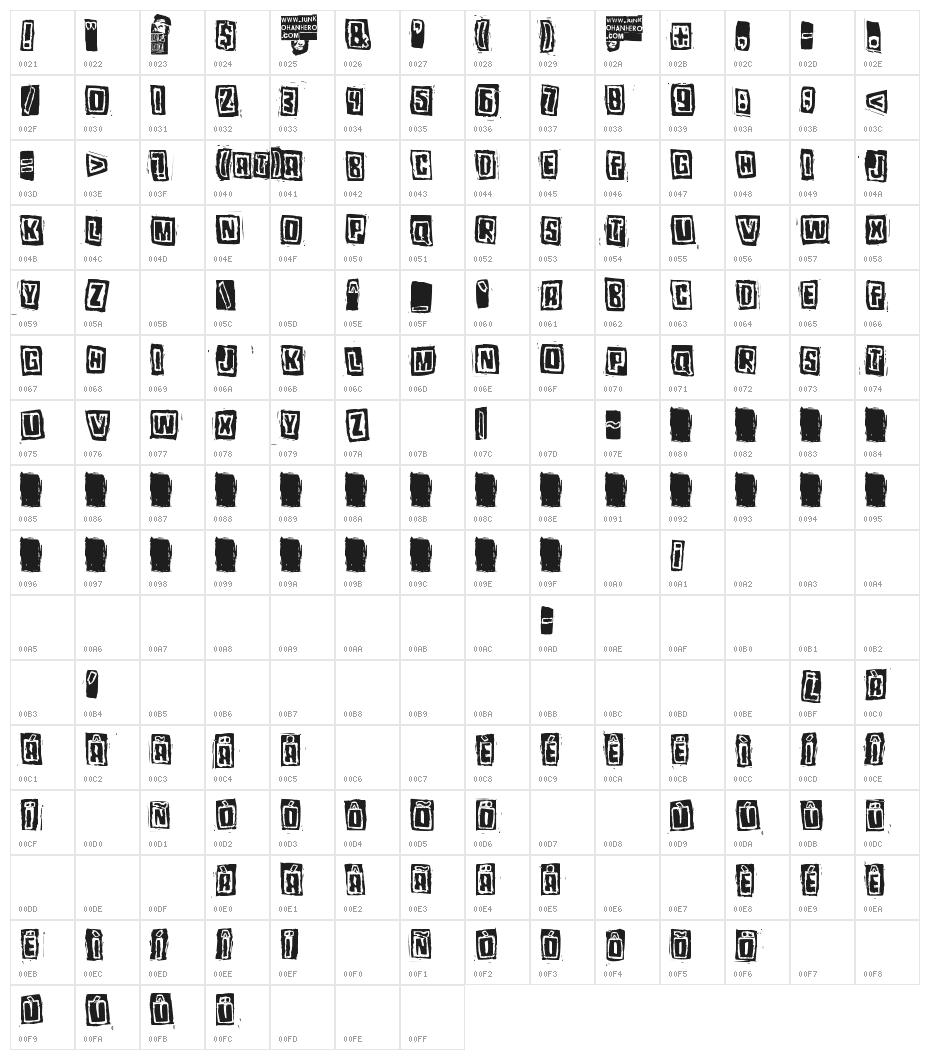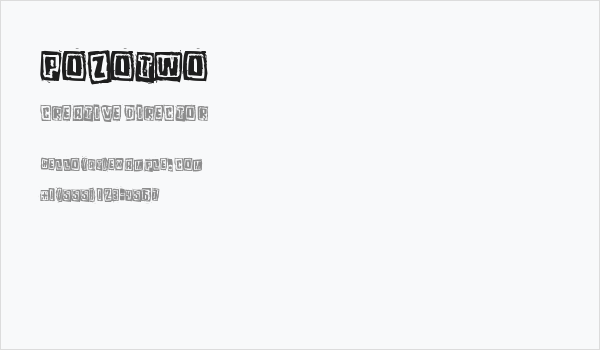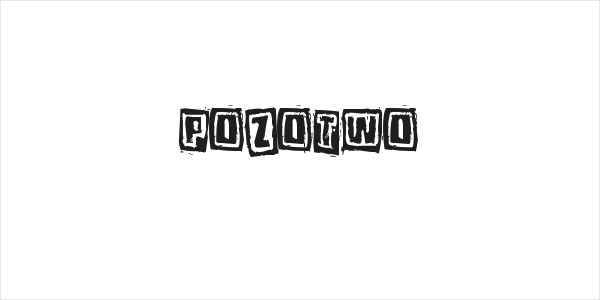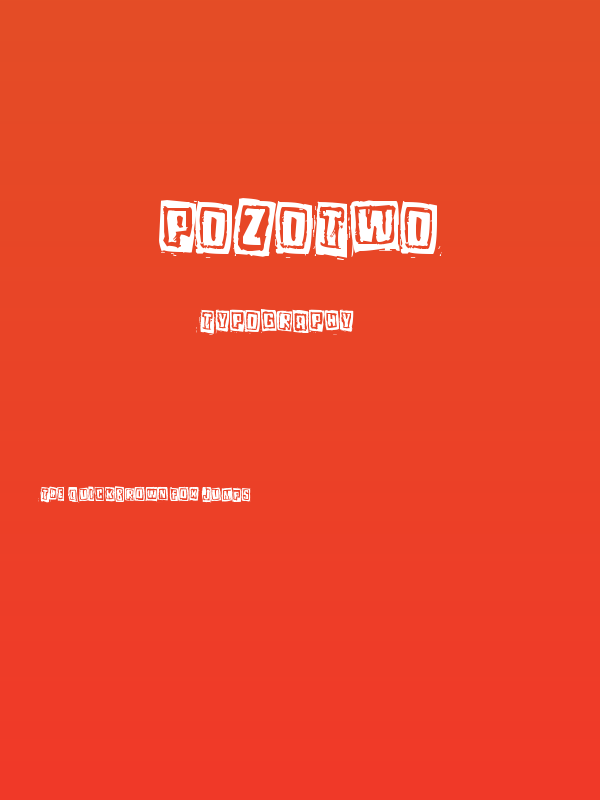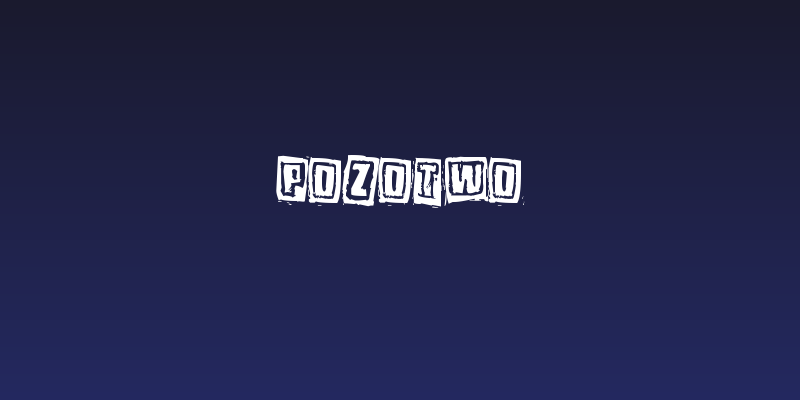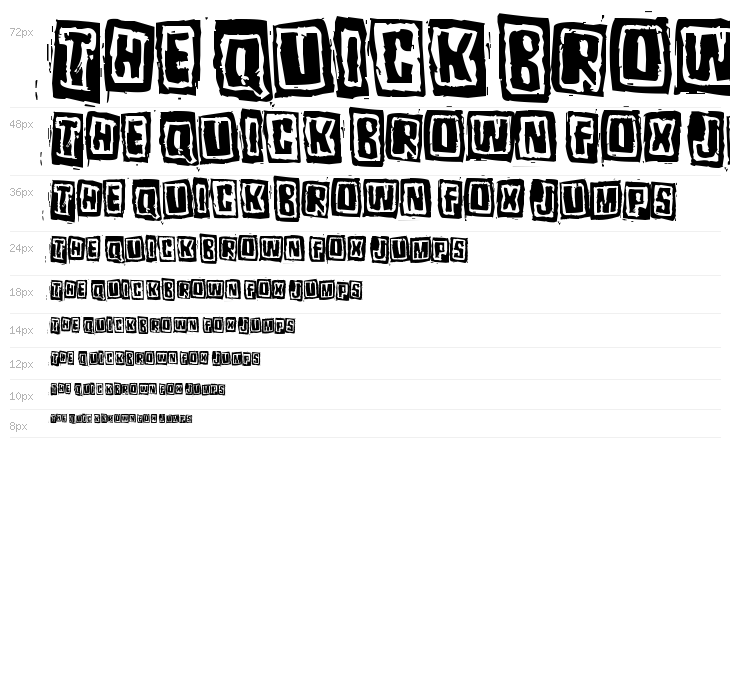
Pozotwo Font
Pozotwo Description
This font features a bold, distressed style with a rough, textured appearance. Each character is enclosed in a box, giving it a stamp-like effect. The letters and numbers have an uneven, hand-crafted look, adding to the rugged and edgy aesthetic. The font's unique style makes it stand out, with its high contrast between the thick, black outlines and the white interior spaces. The irregular edges and varying line thicknesses contribute to its dynamic and energetic feel, making it suitable for projects that require a bold statement.
| Proposed Projects | Ideal for posters, album covers, branding for edgy products, or any design needing a bold, impactful look. |